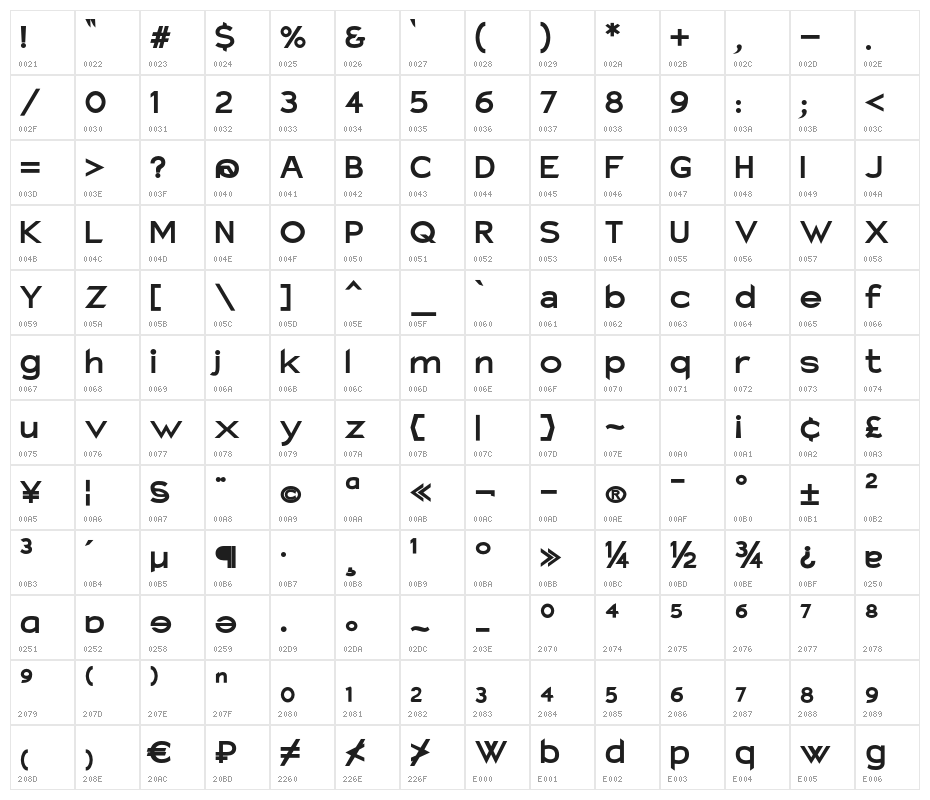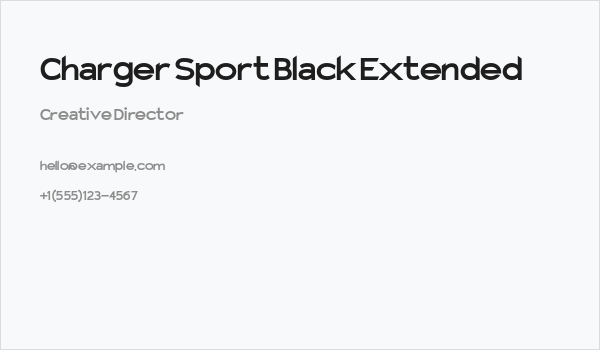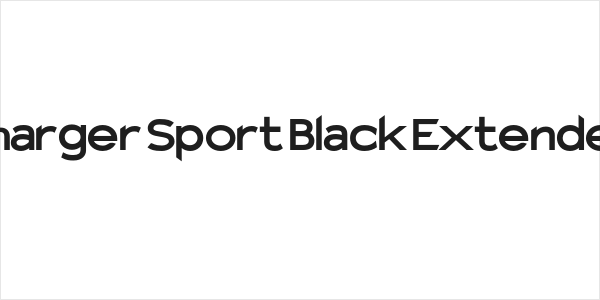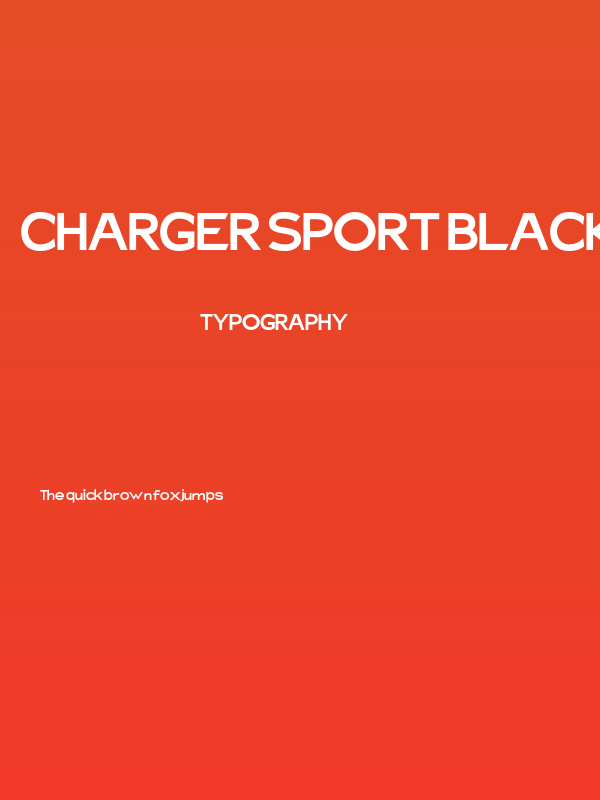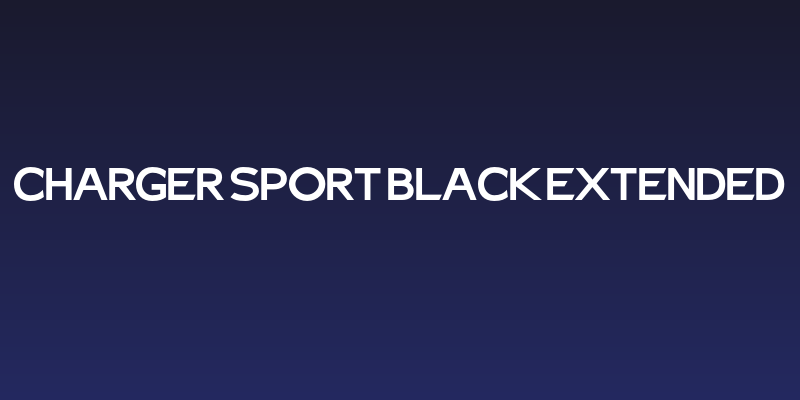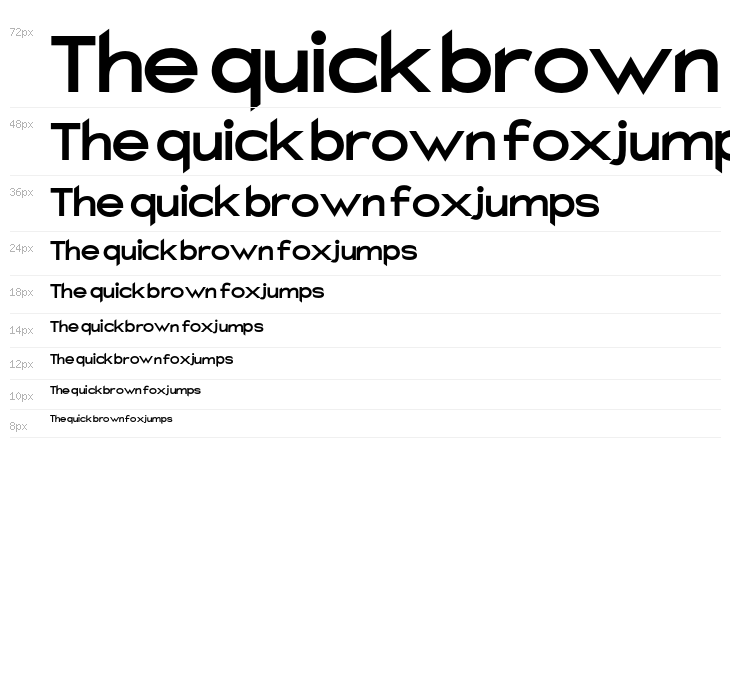
Charger Sport Black Extended Font
Charger Sport Black Extended Description
This font features a bold and modern sans-serif style with clean, geometric lines and a strong presence. The uppercase letters are uniform in height, creating a cohesive look, while the lowercase letters maintain a similar geometric structure, offering a harmonious blend between the two cases. The numerals are clear and easy to read, matching the boldness of the alphabet characters. Special characters are distinct and well-defined, enhancing the font's versatility. The overall design is sleek and contemporary, making it suitable for a variety of applications.
| Proposed Projects | Ideal for branding, advertising, headlines, and digital media projects where a modern and bold statement is needed. |